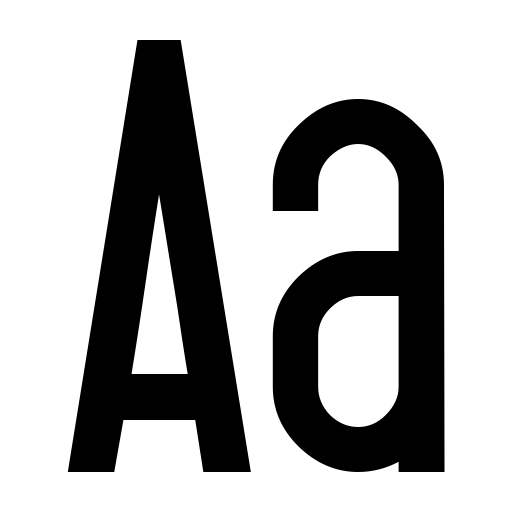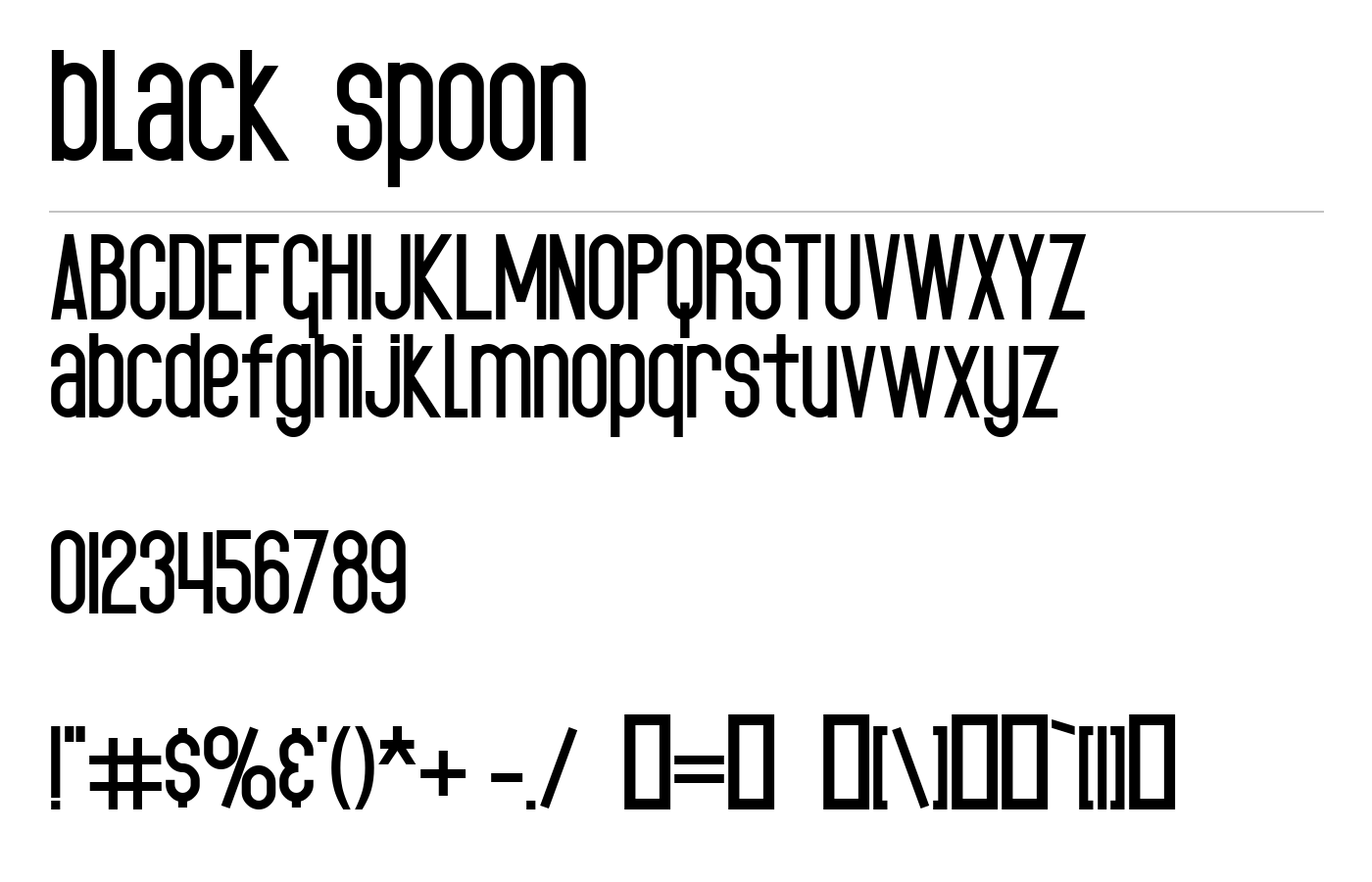
Black Spoon is a tall, narrow sans serif font with a modern and minimalist feel. Its condensed letterforms and consistent stroke weight create a clean, efficient look that works well for bold headlines and contemporary branding. This font’s sleek style makes it a great choice for fashion, editorial, and urban-themed design projects seeking a strong visual impact.
black spoon Font
About black spoon Font
| Font family | black spoon Font |
| Designer | thibault dietlin/alien foundery |